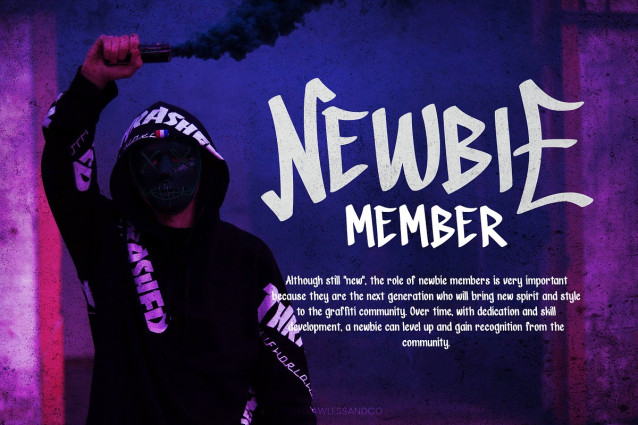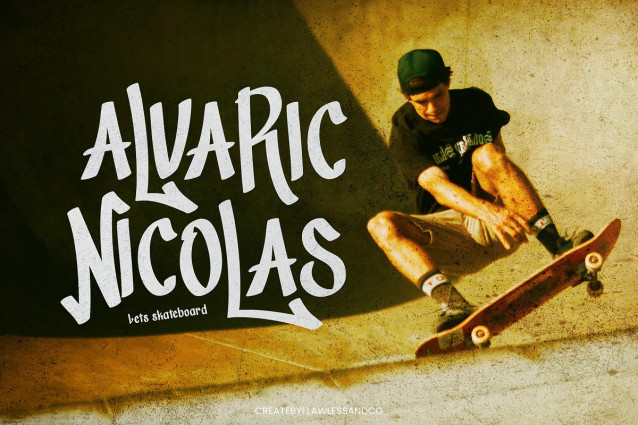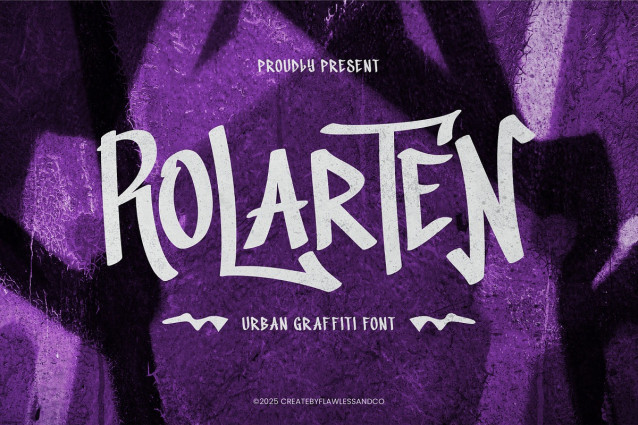
Rolarten Graffiti Font
Rolarten Graffiti Font a bold and gritty urban graffiti font that brings street art straight into your design work. Inspired by raw energy, spray paint textures, and rebellious self-expression, Rolarten delivers a dynamic handstyle that’s perfect for bold headlines and creative identities. Whether you’re designing for streetwear, music events, or extreme sports, Rolarten gives your work a fearless voice — loud, edgy, and unapologetic.